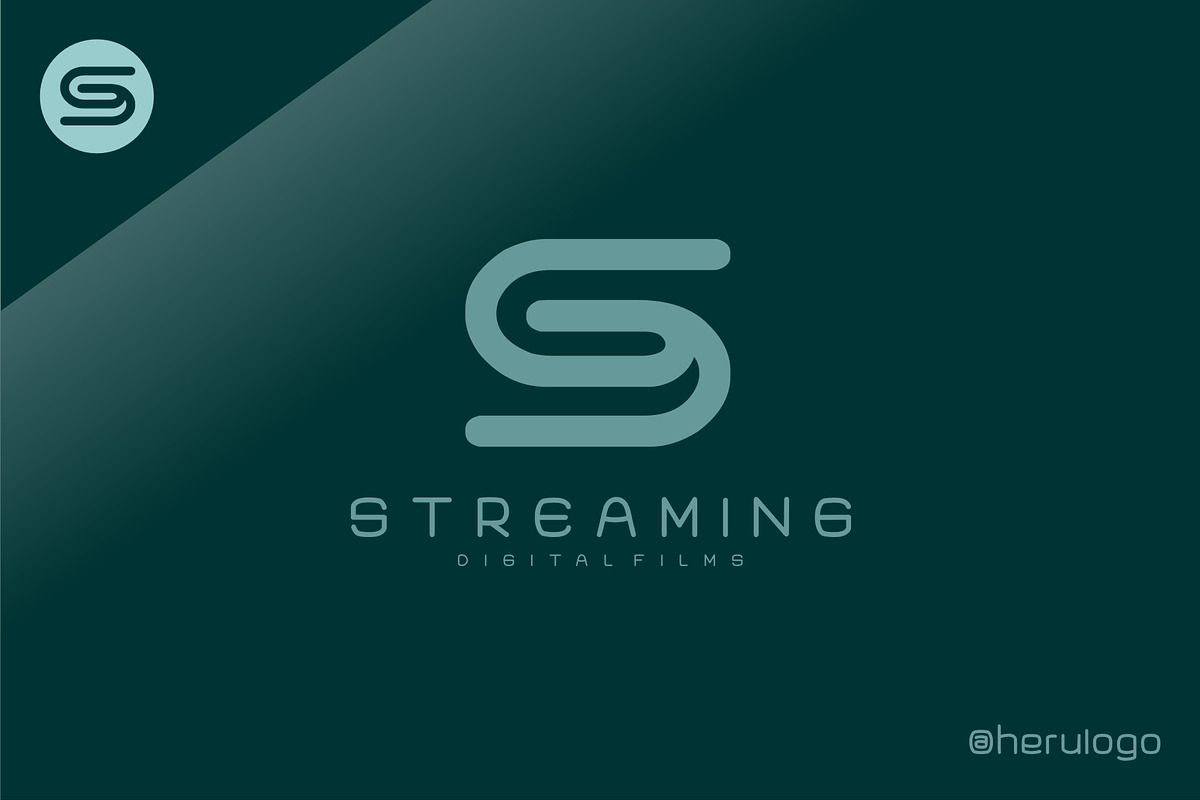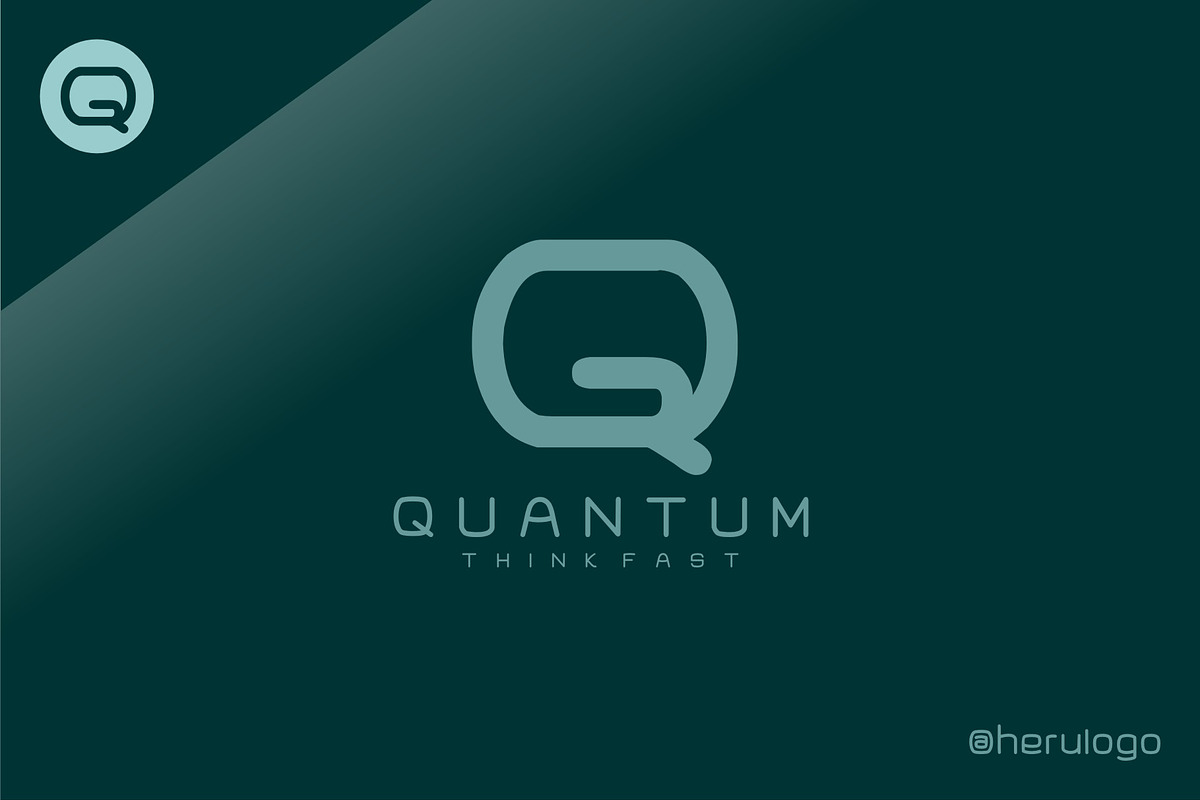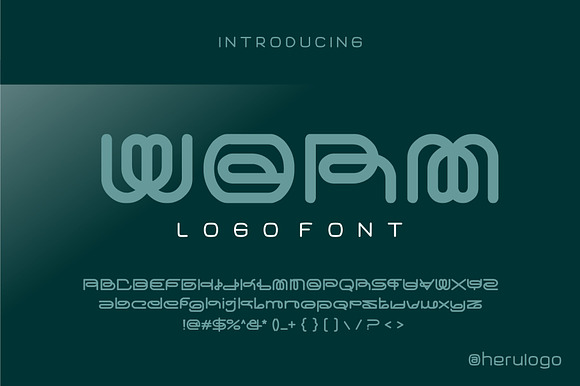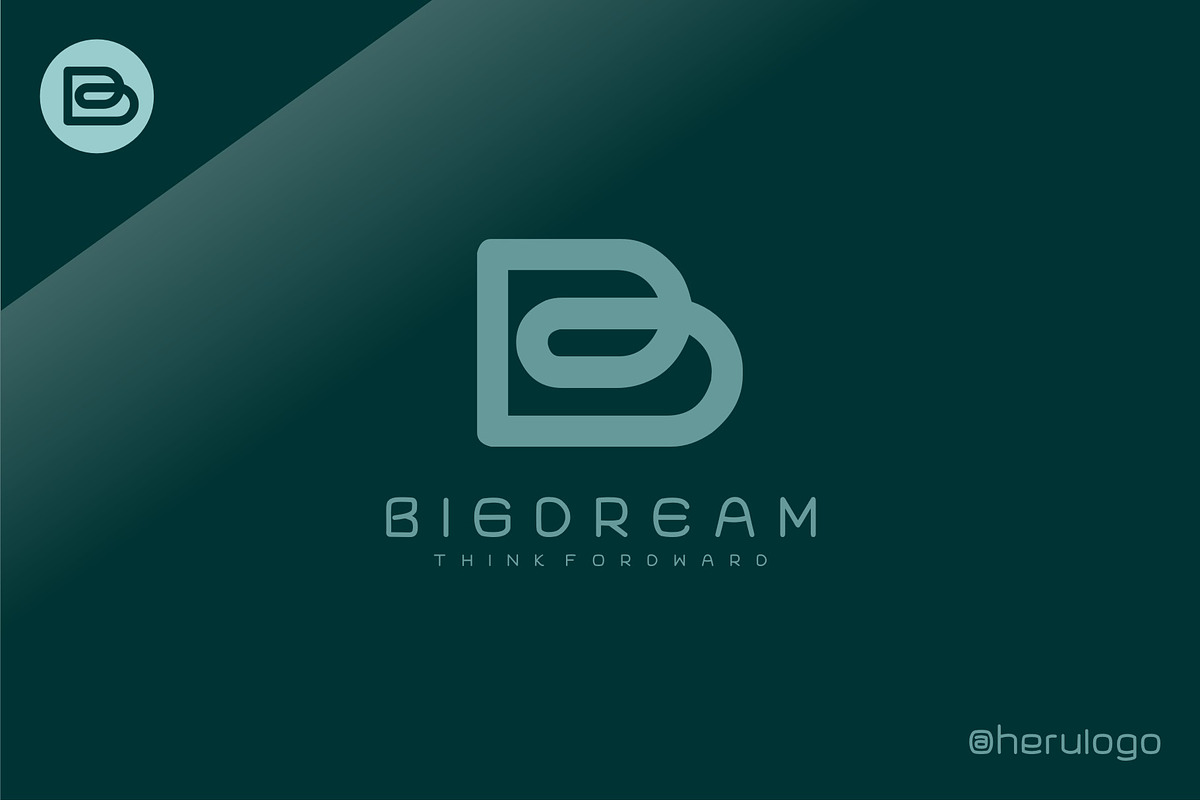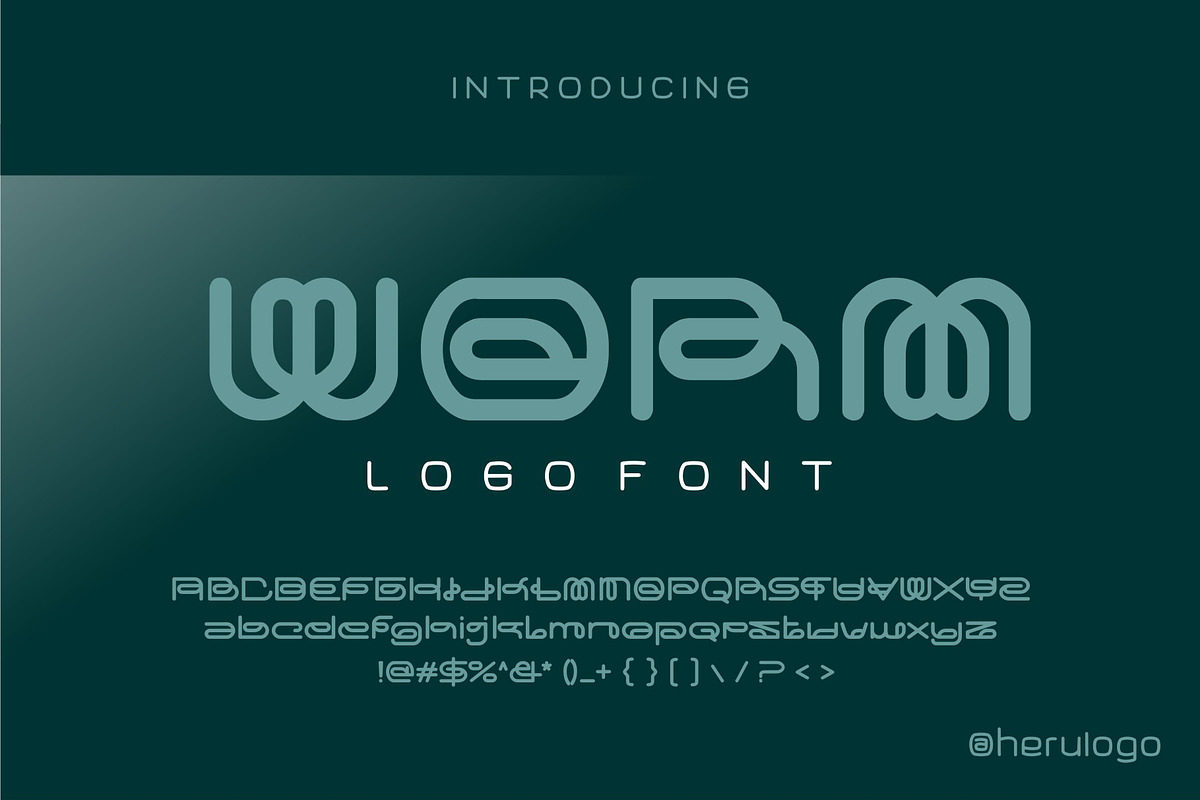
worm typeface
New display typeface modern, unique and and smooth line.
Why worm typeface is worth a look
worm typeface by herulogo fits naturally into Branding, posters, packaging, typography.